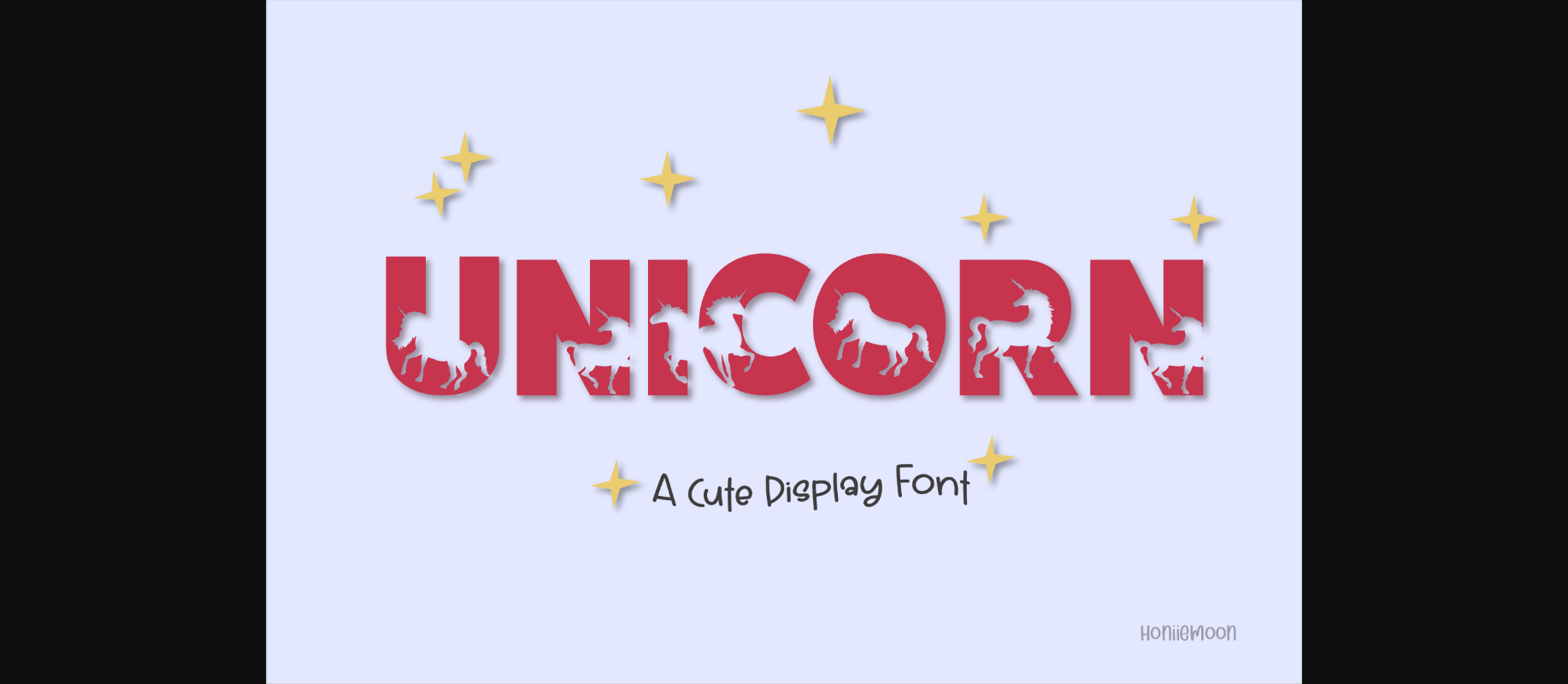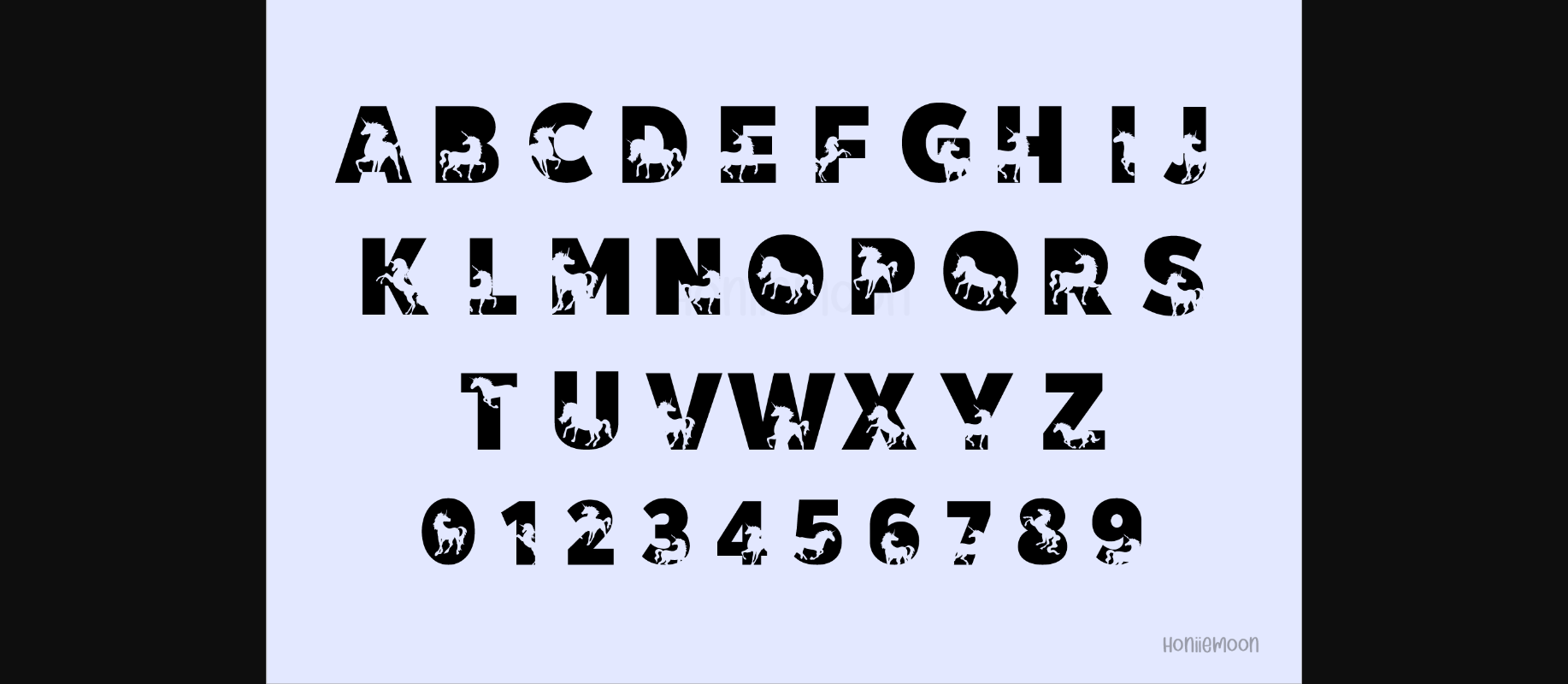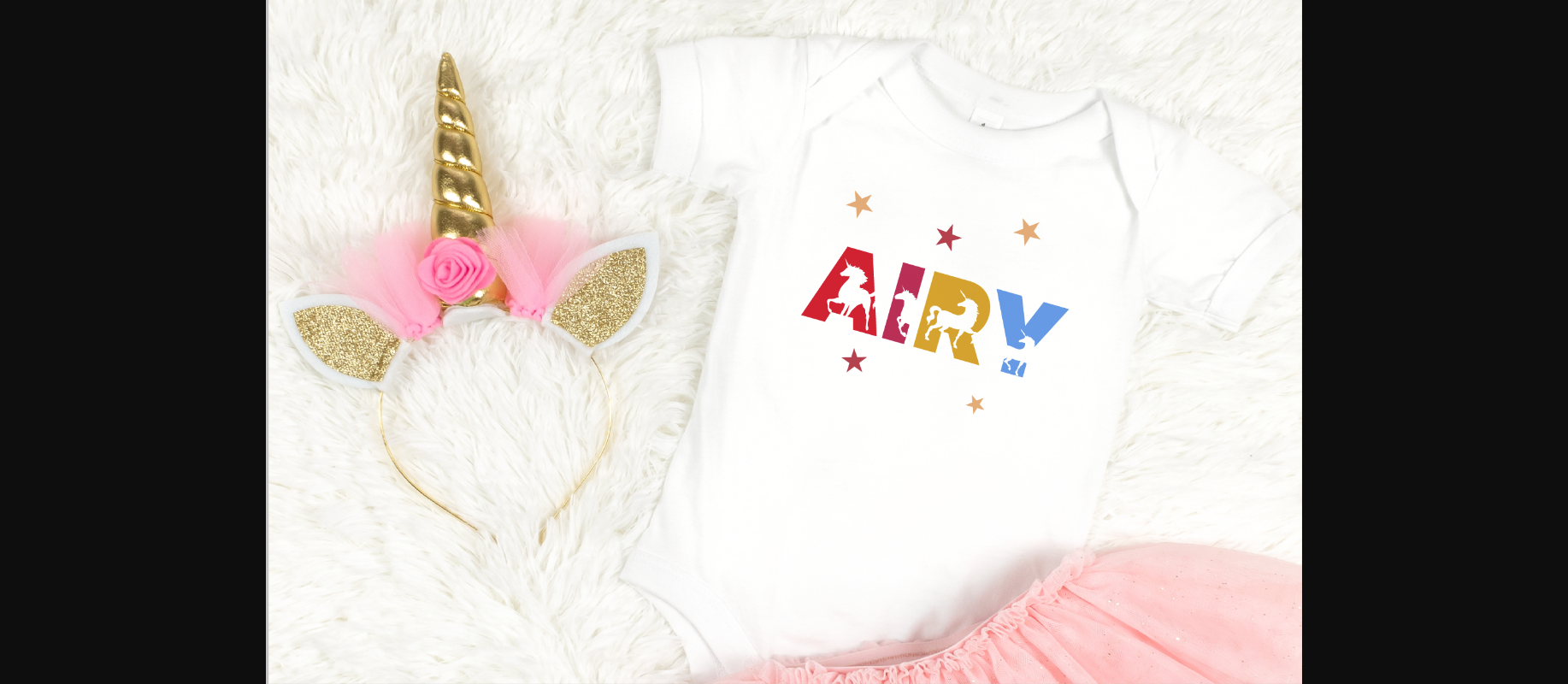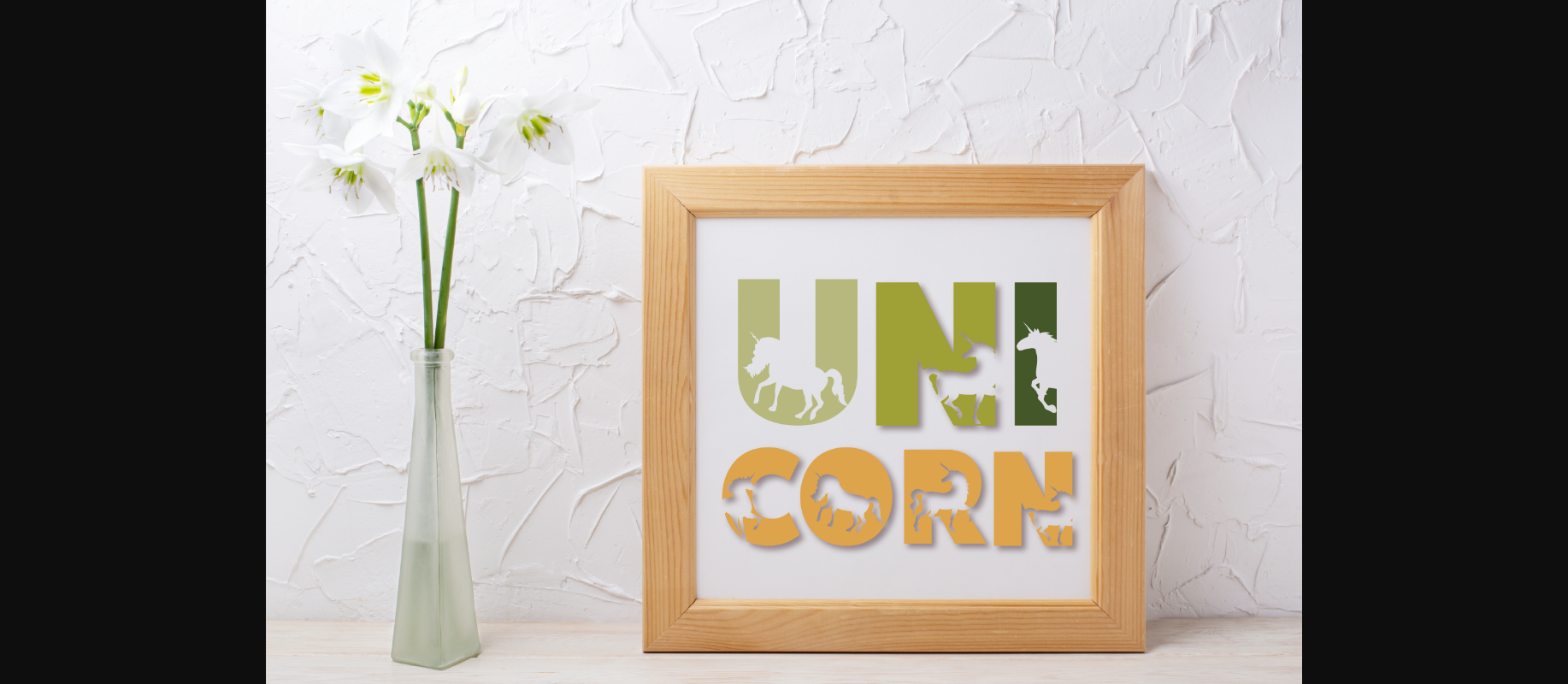
Unicorn Font
About Unicorn Font
Unicorn is a cool and fun decorative font. It looks both cute and jolly and it will enhance each of your designs. The only limit is your imagination. Add this colorful and bold font to each of your creative ideas, and notice how it makes them come alive!